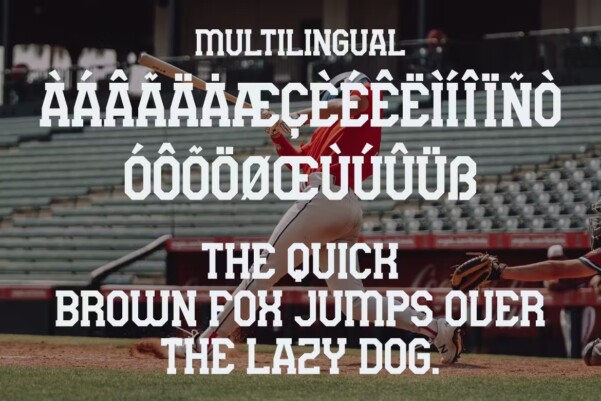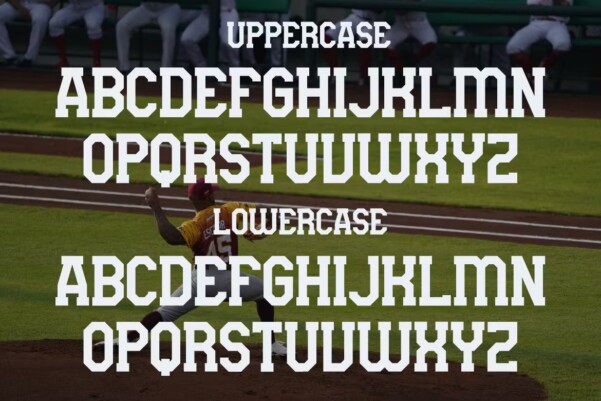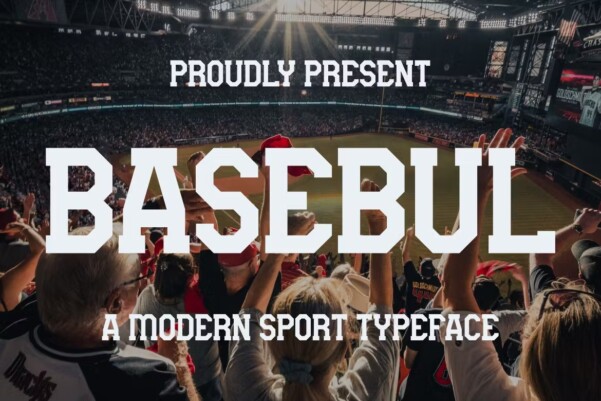
BASEBUL Font
BASEBUL Font – Modern Font is a bold and authentic display font. The font is suitable for any branding project like logo, template design, esport, and many more. outstanding in a wide range of contexts.